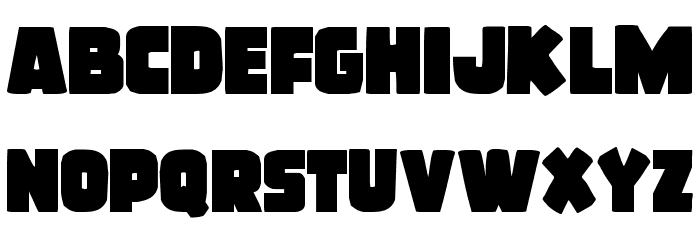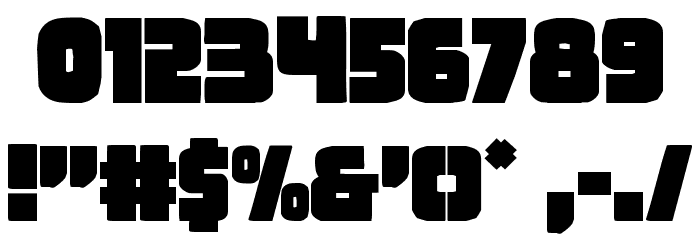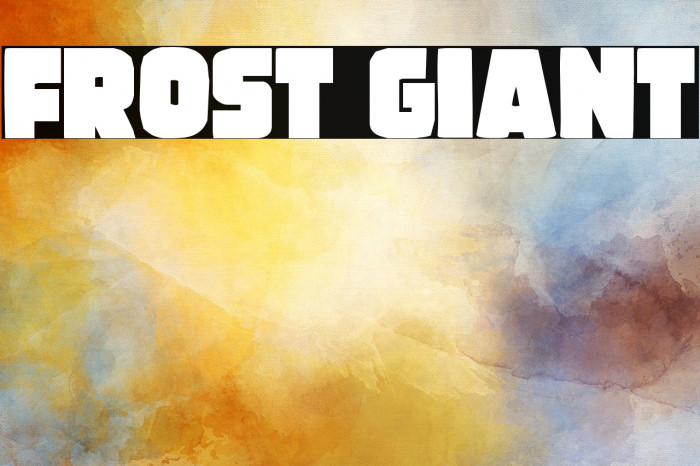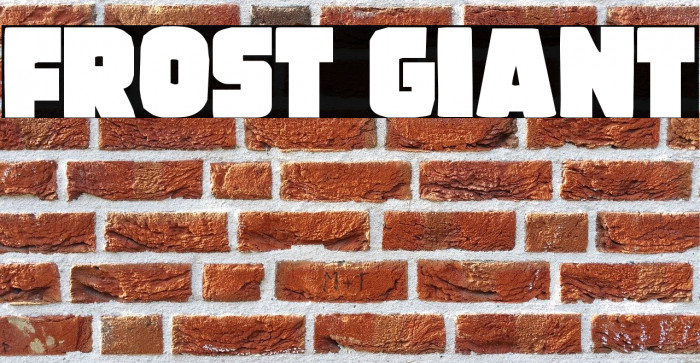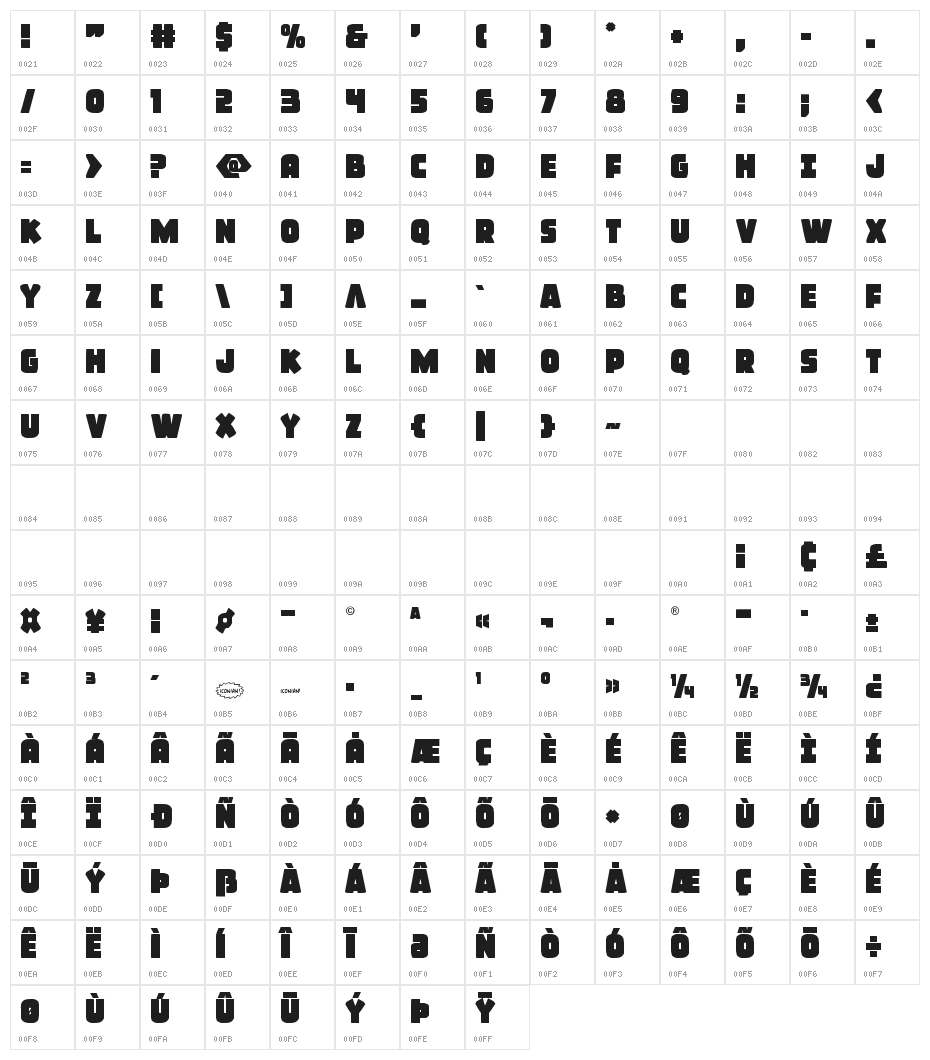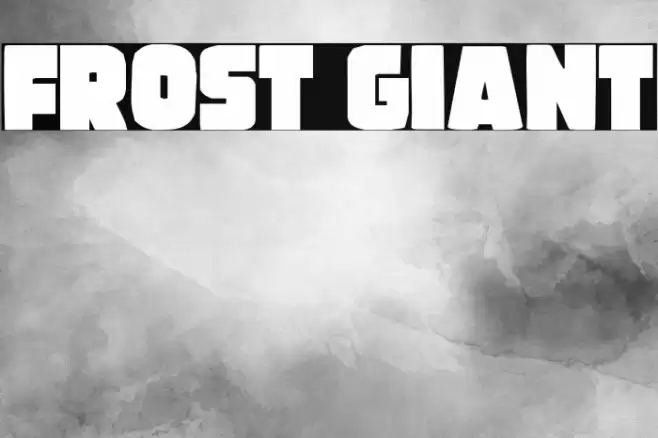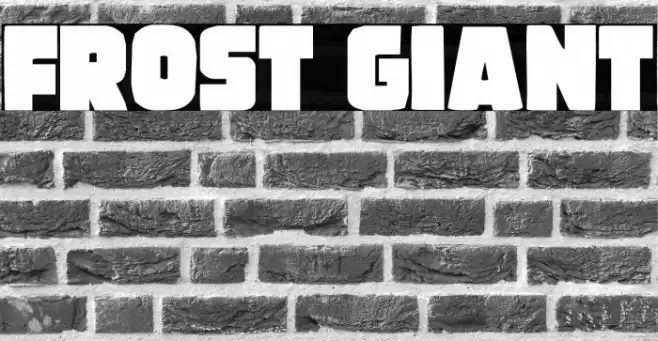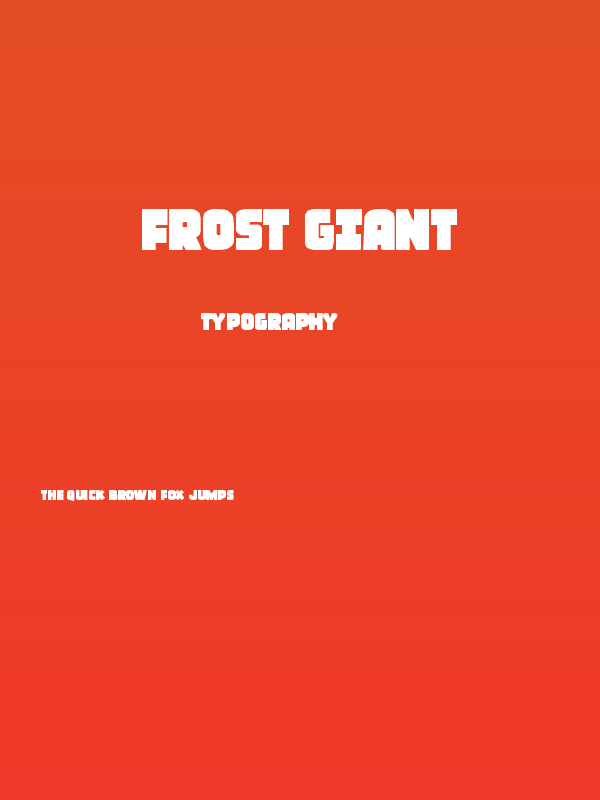
Frost Giant Font
This bold and impactful font features thick, blocky letters with a strong presence. The characters are uniformly wide, creating a sense of stability and strength. The design is straightforward with minimal curves, emphasizing a geometric and robust aesthetic. The uppercase and lowercase letters maintain a consistent style, while the numerals and special characters complement the overall boldness. This font is ideal for making a statement, with its high visibility and commanding appearance.
A bold, blocky font with a strong, geometric design.
- Proposed Projects: Perfect for posters, headlines, logos, and branding materials that require a strong visual impact.